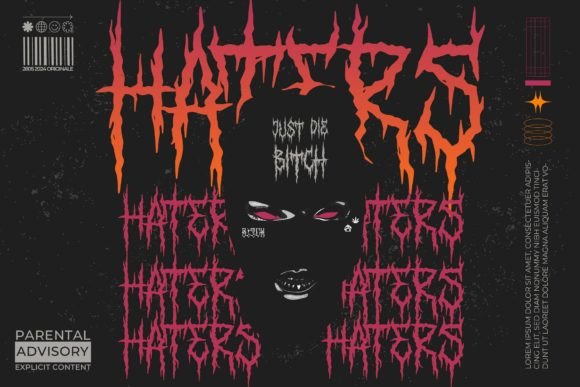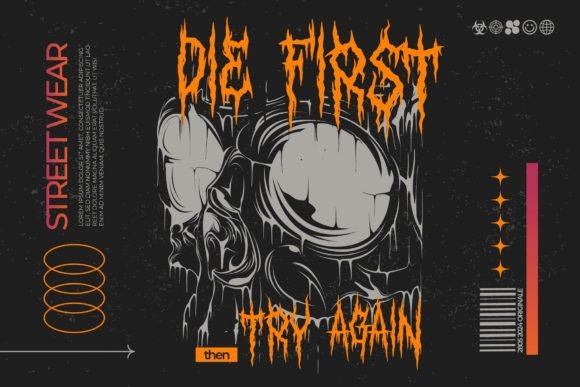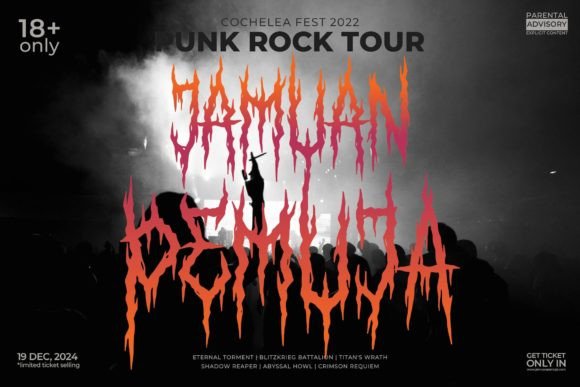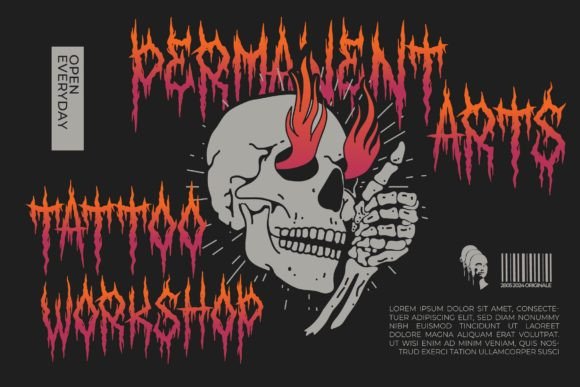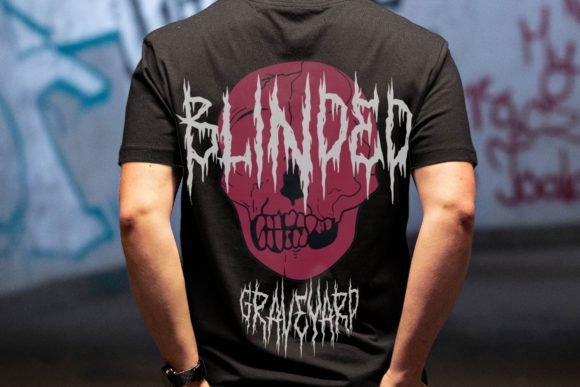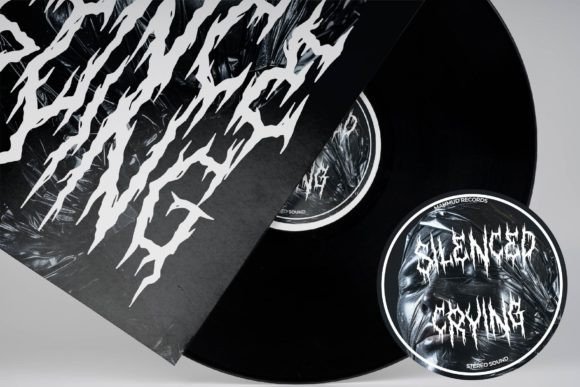
The Dark Allure of Typography: Unleashing the Power of Astaroth Textura Font
Have you ever found yourself lost in a sea of ideas, searching for the perfect font to bring your creative vision to life? Perhaps you’ve stared at a blank canvas, trying to conjure up the perfect typography to match your project’s edgy charm. For those moments when you need a font that screams ‘metal,’ the Astaroth Textura Font is here to save the day.
This Black Metal Typeface is designed to elevate your projects, from logos and branding to homeware designs and product packaging. With its unique texture and dark aesthetic, the Astaroth Textura Font is the perfect addition to any design. Whether you’re working on a photography project, creating special event invitations, or designing book covers, this font is sure to add a touch of sophistication and style to your work.
Astaroth Textura Font Key Features
- Font Style: Textura, with a distressed, vintage aesthetic
- Character Set: Supports a wide range of languages, including Latin, Cyrillic, and Greek alphabets
- Font Size: Offers 6 font sizes, ranging from 8pt to 72pt, suitable for various design applications
- Resolution: Designed for high-resolution displays, with a resolution of up to 300 DPI
- Unique Characteristics: Distressed texture, ornate details, and subtle irregularities give the font a unique, handmade feel
Astaroth Textura Font Review
I’ve had the chance to work with the Astaroth Textura Font, and here’s my honest take on it.
- The Astaroth Textura Font has a unique, hand-crafted feel that can add a lot of character to your designs.
- The font’s texture and imperfections give it a human touch, making it perfect for projects that need a more organic feel.
- The font is highly customizable, with a wide range of styles and weights available.
- The font is highly legible, even at smaller font sizes, making it suitable for body text and headlines.
- The font may not be suitable for projects that require a clean, minimalist look.
- The font’s texture and imperfections can sometimes make it difficult to read, especially for those with visual impairments.
- The font’s customizability can also make it overwhelming to choose the right style and weight for a project.
Overall, the Astaroth Textura Font is a great choice for projects that need a unique, hand-crafted feel. While it may have some limitations, its customization options and high legibility make it a great addition to any designer’s toolkit.
Use the Astaroth Textura font for titles, headings, and other emphasis text to add a unique and stylish touch to your designs.
Combine the font with other textures and design elements to create a cohesive and visually appealing look.
The Astaroth Textura font is ideal for:
Designing book covers and booklets
Creating posters and flyers
Developing brand identities and logos
Alternatives to Astaroth Textura Font
Playfair Display is a luxurious, high-end serif font ideal for creating elegant and sophisticated designs. It’s perfect for use in wedding invitations, luxury brands, and high-end publications. Compared to Astaroth Textura Font, Playfair Display is more refined and elegant, making it suitable for more formal and high-end designs.
2. Museo Slab
Museo Slab is a modern sans-serif font with a slab serif twist, offering a unique blend of elegance and sophistication. It’s suitable for use in modern designs, corporate identities, and editorial content. Compared to Astaroth Textura Font, Museo Slab is more modern and versatile, making it a great choice for a wide range of design applications.
3. Rockwell
Rockwell is a classic serif font with a strong, sturdy feel, making it perfect for use in designs that require a sense of reliability and trust. It’s suitable for use in corporate identities, packaging designs, and editorial content. Compared to Astaroth Textura Font, Rockwell is more classic and traditional, making it a great choice for designs that require a sense of stability and consistency.
4. Akkurat
Akkurat is a modern serif font with a unique blend of elegance and sophistication, making it perfect for use in high-end designs. It’s suitable for use in luxury brands, editorial content, and modern publications. Compared to Astaroth Textura Font, Akkurat is more refined and elegant, making it suitable for more formal and high-end designs.